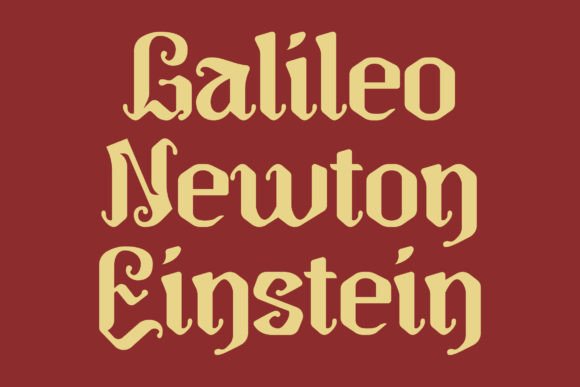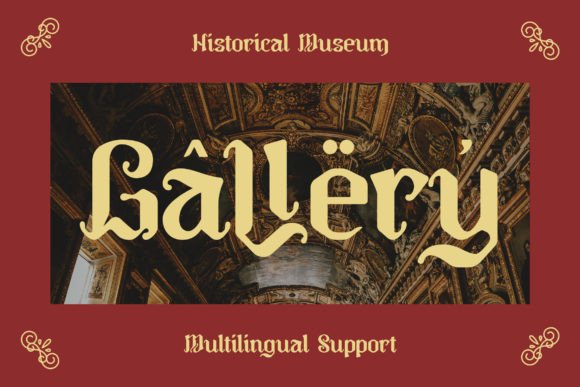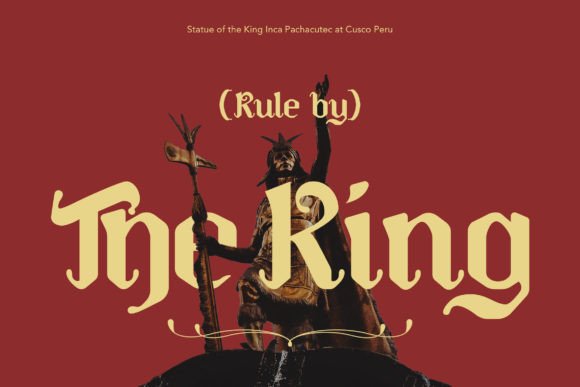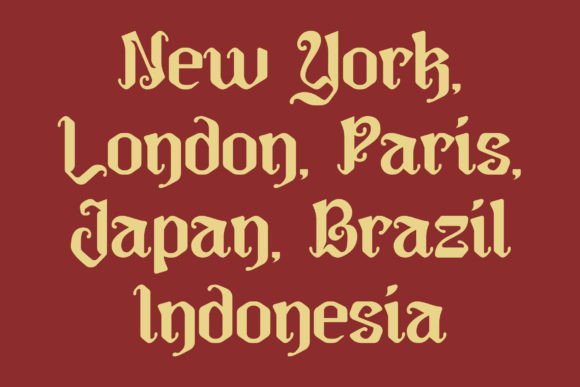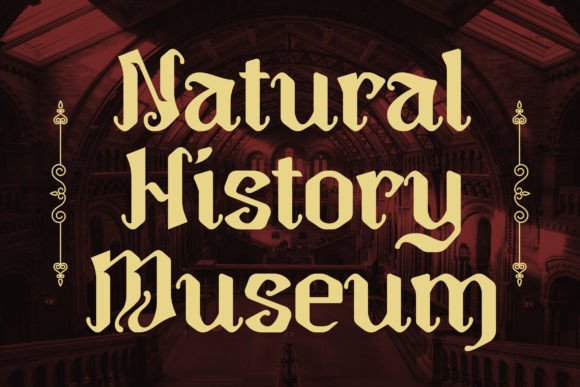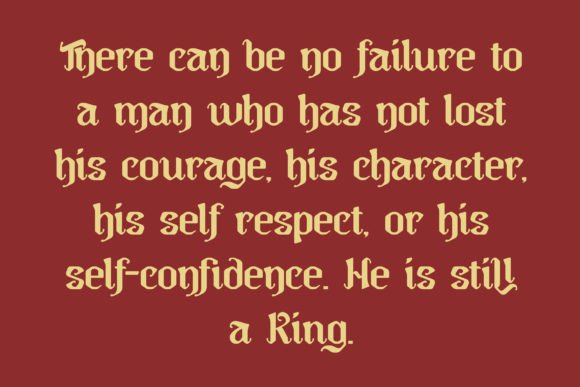
Introduction to Golligan Font
Golligan is both outstanding and attractive, with letters that command attention and exude sophistication.
The letters are well-crafted, with intricate details and a sense of Gothic elegance Its striking and powerful appearance makes it perfect for branding, editorial design, and designs that require a touch of gravitas and timeless style.
Key Features of Golligan Font